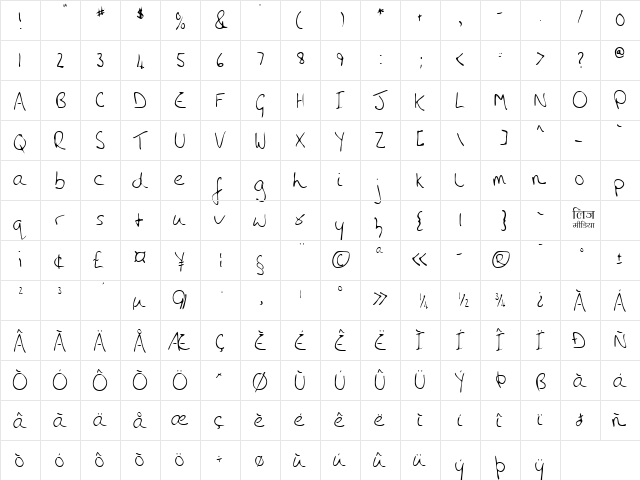
LEHN010 Regular
Design Context for LEHN010 Typeface
LEHN010 is a composed and adaptable typeface that performs quietly and consistently across a wide range of design contexts.